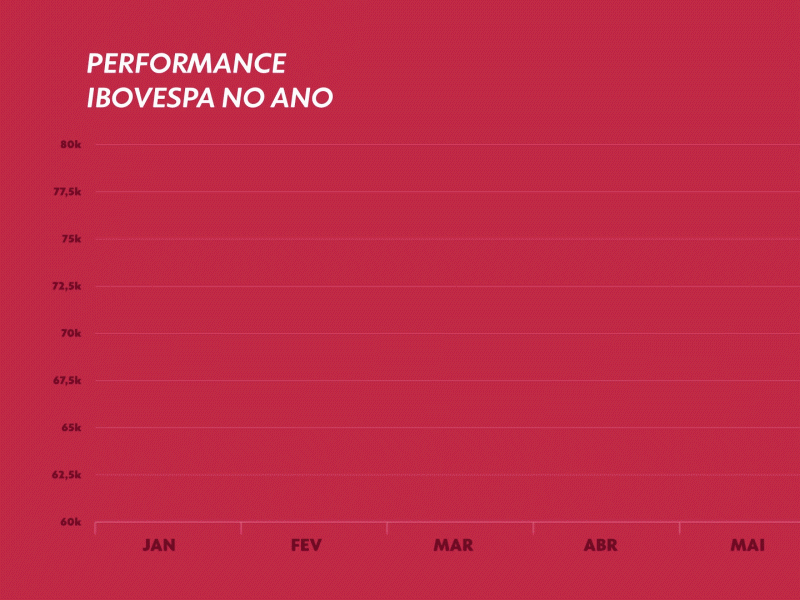
Globotipo Texto - Rede Globo’s bespoke typeface
Typography is a brand’s stem cell for communication. Plau just completed a 30-font project for Latin America largest media conglomerate, @Rede Globo.
The typeface redesign is part of a branding effort that began in the celebration of the network’s 50th anniversary.
Together with their talented creative team, we designed a brand asset that is bound to be active and present in Globo’s communication for years to come.
Today, the fonts can be seen by one hundred million people everyday, from advertising and soap operas to Brazil’s biggest newscast - Jornal Globo.
Tipografia é a célula tronco que as marcas têm para se comunicar com sua rede. Recentemente, a Plau completou o projeto da Globotipo, a nova família de fontes da Rede Globo.
As fontes são parte de um processo de reposicionamento da marca iniciado pela Globo a partir da comemoração dos seus 50 anos, com os conceitos de fluidez, movimento e circularidade se transformando para o futuro.
Criamos em conjunto com a equipe da Globo esse que vai ser um importante e presente ativo da marca para os próximos anos. E eu, você e cem milhões de pessoas já podem ver as fontes dos comerciais da emissora ao Jornal Nacional todo dia.